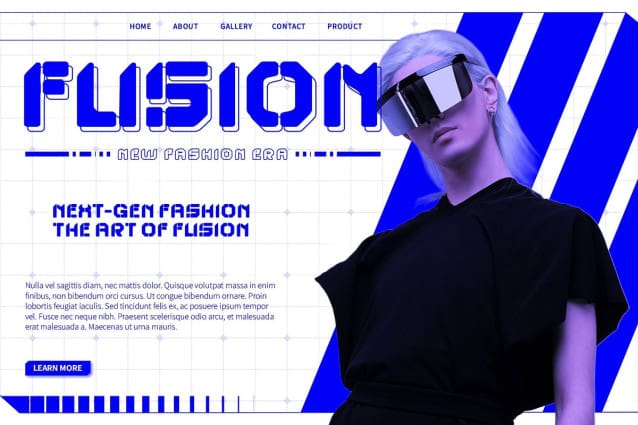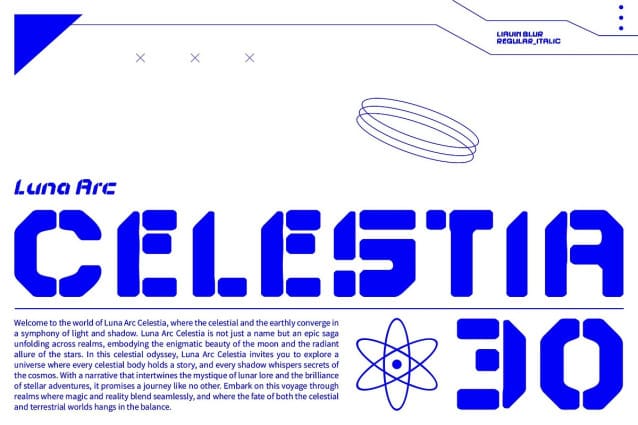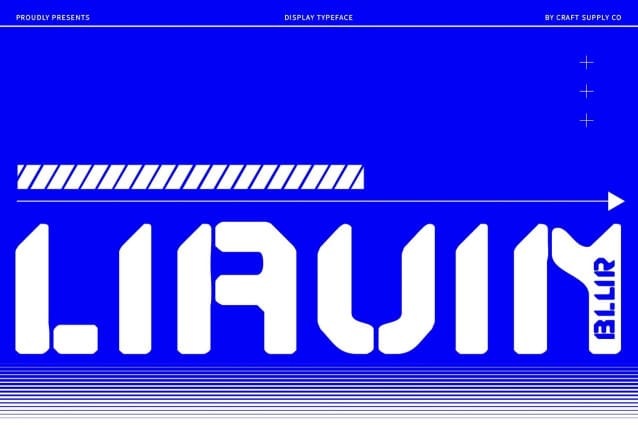
Liavin Blur Font
Liavin Blur Font is a modern display font that merges a stencil design with a bold weight, combining retro aesthetics with an industrial and utilitarian character. The sharp, clear cuts of the stencil create a strong, functional impression reminiscent of industrial signs or labels.
Bold Weight for Assertiveness and Visibility The bold weight of Liavin Blur enhances its assertiveness and solidity, making it ideal for projects that need to capture attention and boost visibility. Its robust design focuses attention, ensuring that your message stands out prominently.
Ideal for Industrial Branding and Retro Posters Liavin Blur excels in industrial branding, retro posters, and any design requiring a bold and practical look. Its combination of stencil cuts and bold weight conveys strength and functionality, making it perfect for designs that aim to communicate a sense of durability and reliability.
Perfect for Conveying Strength and Functionality Whether for branding, signage, or promotional materials, Liavin Blur delivers a powerful and functional aesthetic. Its distinctive stencil design and bold presence make it an excellent choice for projects that need to project strength and a practical edge.